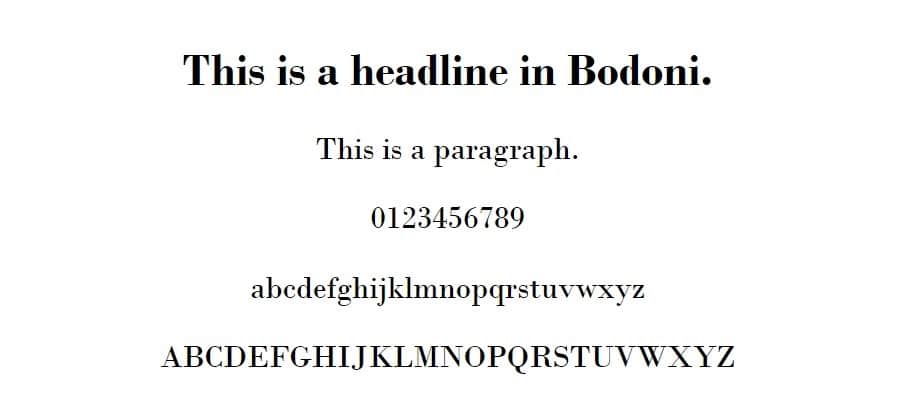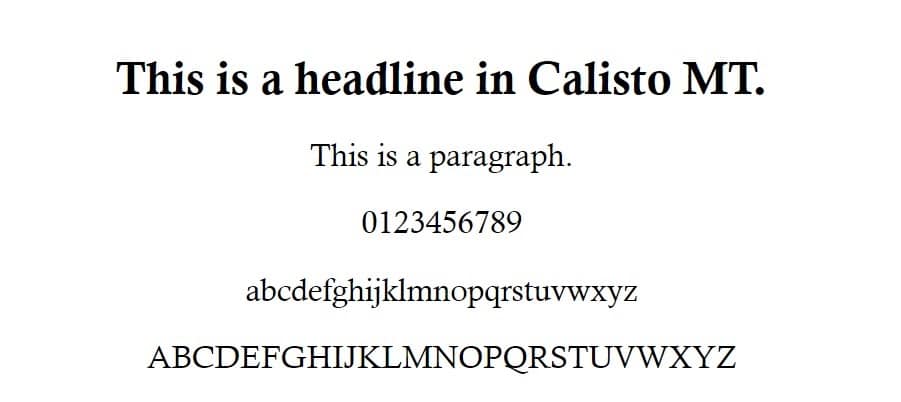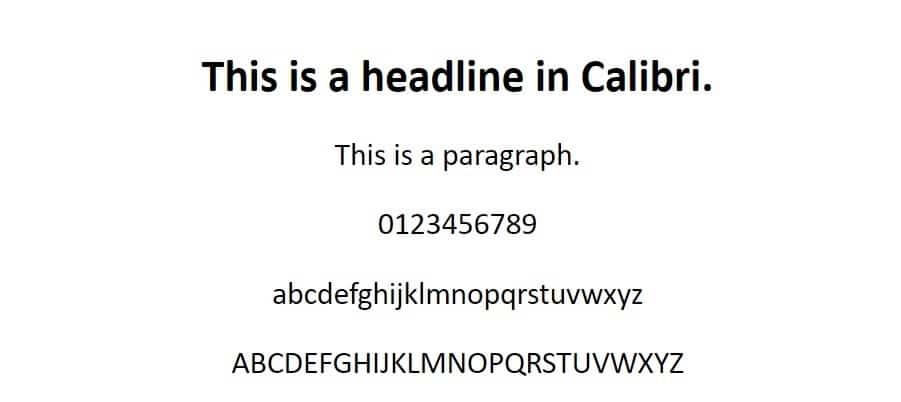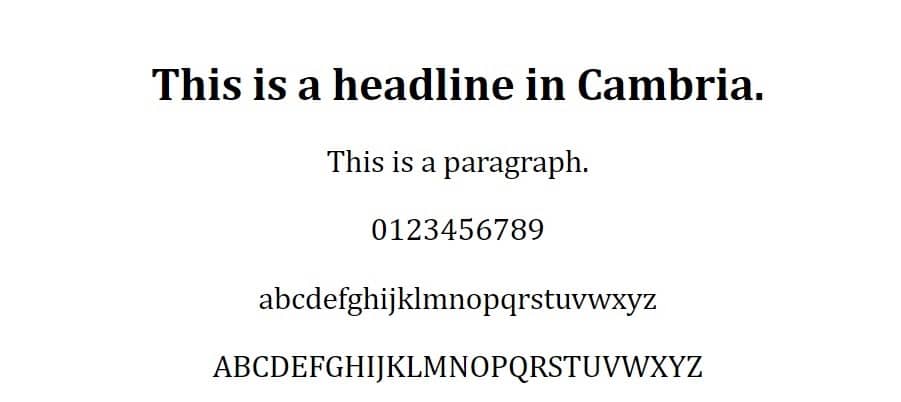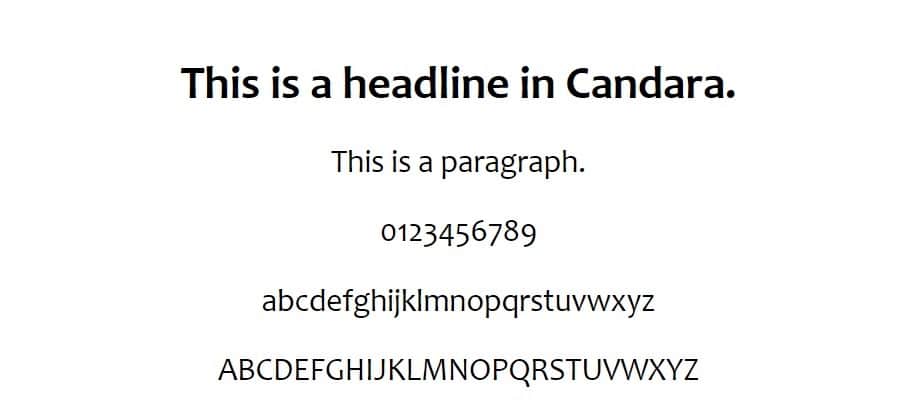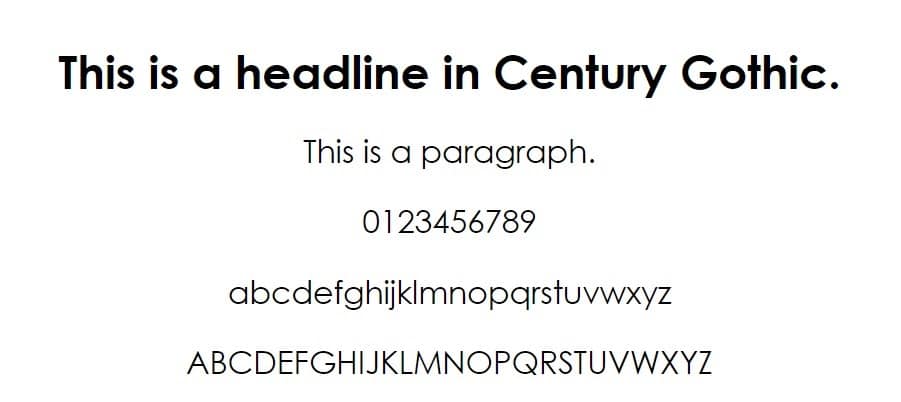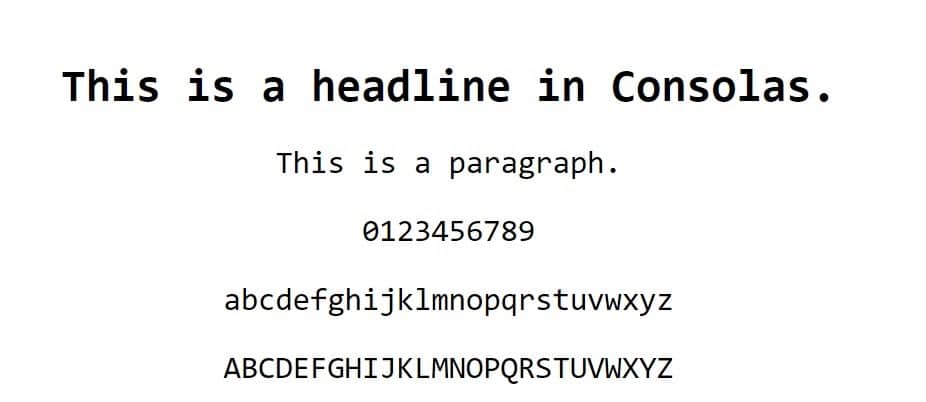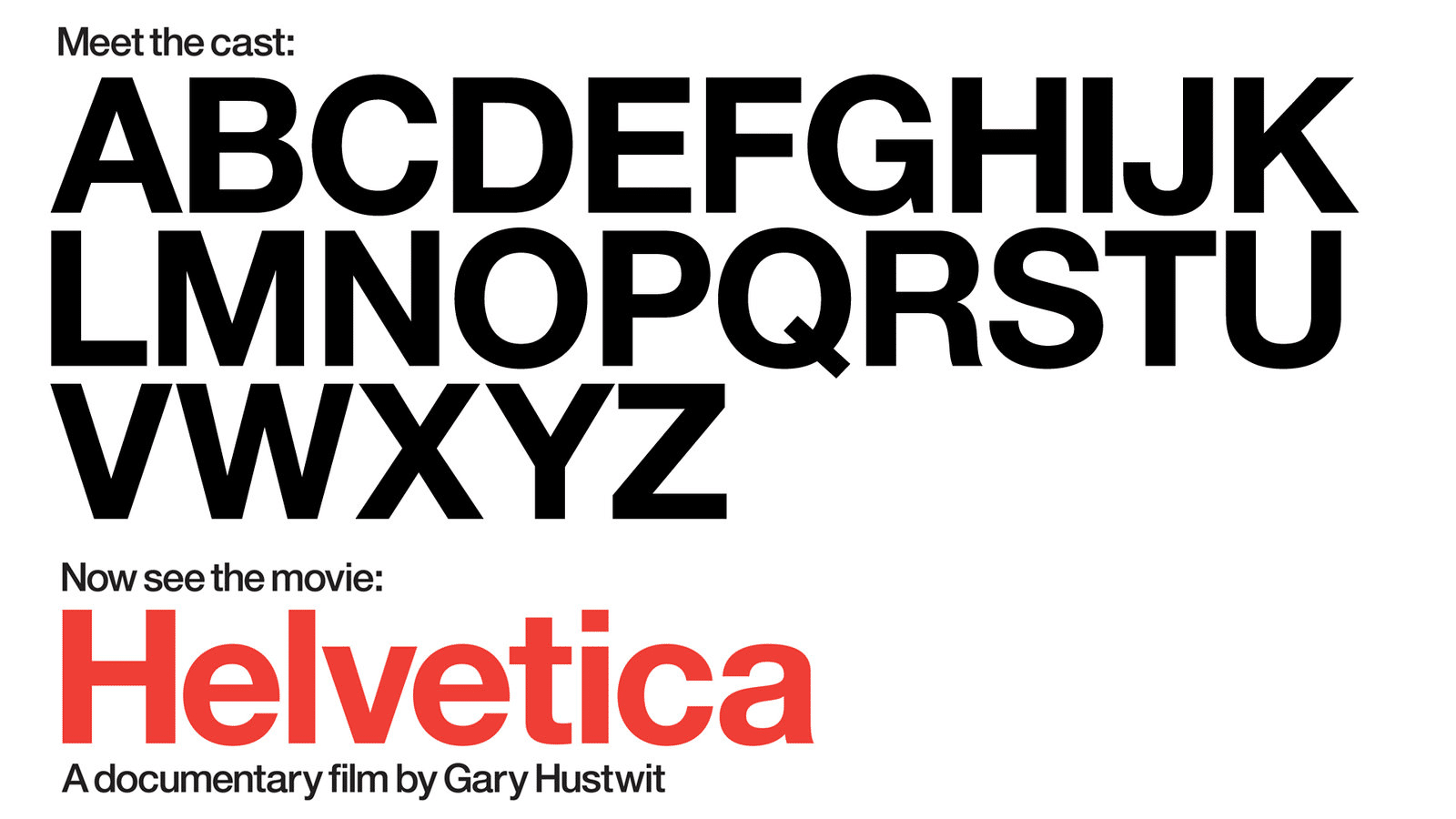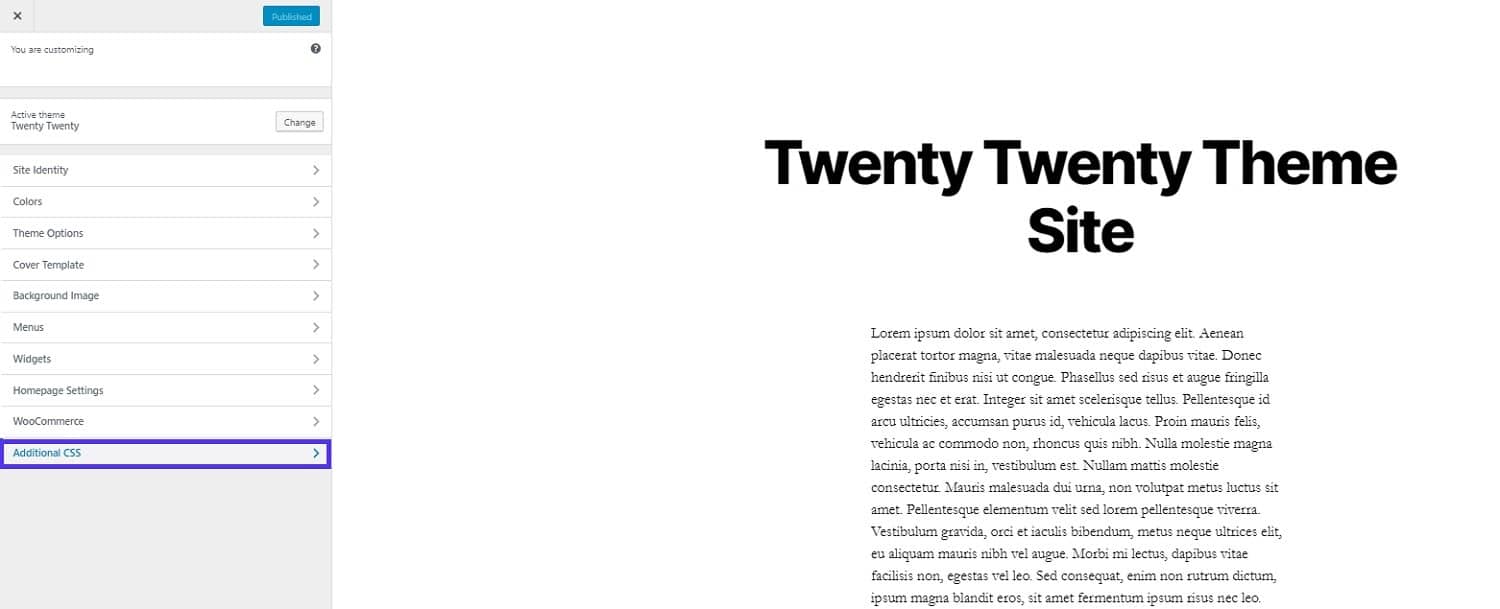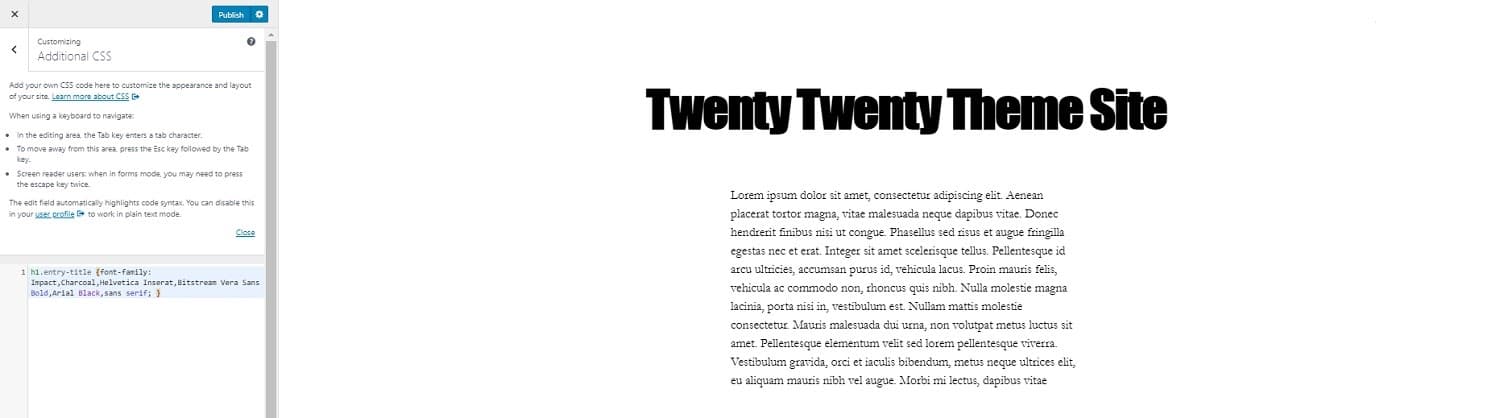
30+ Best Web Safe Fonts for Your Next Design in 2023
You don’t need thousands of fonts to create a great-looking website. But you do need to make sure that the fonts you use are visible to everyone who visits your website. And that’s where web safe fonts come in.
And if you could find web safe fonts which are a) 100% free to use and b) don’t need to be hosted anywhere else for your visitors to see them, it’d be a homerun for you.
That’s exactly what this post has been written for: we’ll cover the 31 best-looking web safe fonts and show you exactly how to implement them into your WordPress site.
What Fonts are Web Safe?
Including variations, there are over 650,000 different fonts available online. Fonts that are supported by the majority of web browsers and operating systems are considered to be web safe. The operating system automatically includes the font files, so visitors don’t have to download fonts from your servers.
An example is the ubiquitous Arial font that birthed thousands of “spin-offs”.
Are Web Safe Fonts Necessary in 2023?
Sure, the vast majority of users now use Google Chrome, both on mobile and desktop. But that doesn’t mean web safe fonts are a thing of the past.
In fact, supported fonts vary based on the operating systems, including the current version a user has. So if you design a website with a font only supported by the newest version of Windows 10, most users will see something else.
In addition, if you choose to use and host a custom local font, or font hosted by a third party, it can slow down your website. So, switching to web safe fonts can speed up your website. And that’s a great thing. Because nearly 70% of consumers say page speed influences their purchasing decisions.
Are Google Fonts Web Safe?
Google Fonts aren’t inherently supported by your operating system, so by definition, they aren’t web safe fonts. Rather, since Google, a third-party, hosts them, a Google Font is called a web font. Confusing, we know, but the difference is that your browser needs to load a file before it can show Google fonts.
Web safe fonts already have font files ready on the majority of devices. But, don’t worry about the lack of the word safe. Google Fonts are completely safe to use to enhance the design of your website. But, the extra HTTP requests to an outside server could slow down your page loading speed.
31+ Best Web Safe Fonts
We’ve compiled a list of over thirty different great-looking web safe fonts you can use to design your website.
Let’s jump right into it.
1. Arial
arial font - web safe fonts
Arial font example
Arial is a classic sans serif font, suitable for both paragraphs and headlines. It’s long been a staple in web design. Although in recent years, it’s often used as a fallback in a font stack, rather than as the main font-family.
2. Baskerville
baskerville font - web safe fonts
Baskerville font example
Baskerville is a relatively thick serif font, originally developed as a typeface by John Baskerville in 1750. The design is well-balanced, using a mix of thick and thin strokes to soften the hard edges of a typical serif typeface. It’s well supported by newer Apple and Microsoft OS versions.
3. Bodoni MT / Bodoni 72
bodoni font
Bodoni MT font example
Bodoni MT is a serif font, like Times New Roman, more suitable for paragraph text than headlines for most websites. Bodoni MT is available by default with Microsoft 10 and some older versions. Bodoni 72 is included with macOS Sierra and newer versions.
4. Calibri
calibri font - web safe fonts
Calibri font example
Calibri is Microsoft’s standard sans serif font and has been since its release with Microsoft Office 2007. It has a soft, modern look, with rounded edges to elevate the typical sans serif feel, making it more warm than robotic.
Recommended Font Stack
Font-family: Calibri, Candara, Segoe, Segoe UI, Optima, Arial, sans-serif.
5. Calisto MT
calisto mt font - web safe fonts
Calisto MT font example
Calisto MT is a serif font with slightly softer and less pronounced serifs than most similar typefaces. It’s a standard Microsoft font, included with most newer versions of Windows. The macOS or iOS equivalent is the Bookman Old Style font.
Recommended Font Stack
Font-family: Calisto MT, Bookman Old Style, Bookman, Goudy Old Style, Garamond, Hoefler Text, Bitstream Charter, Georgia, serif.
6. Cambria
cambria font - web safe fonts
Cambria font example
Cambria is an even softer serif font, with, in many cases, barely noticeable serifs even for capital letters. This gives it a more modern feel and also maintains a high level of readability on screens.
Recommended Font Stack
Font-family: Cambria, Georgia, serif.
7. Candara
candara font
Candara font example
Candara is a sans serif font. It’s part of Microsoft’s ClearType font collection. The macOS and iOS equivalent is Optima Regular. The uneven stroke weights make it feel a bit less modern and corporate than other sans serif fonts.
Recommended Font Stack
Font-family: Candara, Calibri, Segoe, Segoe UI, Optima, Arial, sans-serif.
8. Century Gothic
century gothic font - web safe fonts
Century Gothic font example
Century Gothic is a geometric sans serif font, with a very clean and balanced look. It’s a great font for the web, especially for headings and subheadings. It was originally designed to compete with the font Futura. It’s included with most Microsoft and Apple operating systems.
Recommended Font Stack
Font-family: Century Gothic, CenturyGothic, AppleGothic, sans-serif.
9. Consolas
consolas
Consolas font example
Consolas is a sans serif font with a unique approach to design. All characters have the same width, which is why it uses serifs only for the letter “I” and the lowercase “l”. It’s part of the ClearType collection.
Recommended Font Stack
Font-family: Consolas, monaco, monospace.
10. Copperplate Gothic
copperplate gothic
Copperplate Gothic font example
Copperplate Gothic is a gothic-inspired font, with slight glyphic serifs on certain letters. As it’s inspired by gothic runes, there’s no lowercase font available.
Recommended Font Stack
Font-family: Copperplate, Copperplate Gothic Light, fantasy.
11. Courier New
courier new font - web safe fonts
Courier New font example
Courier New is a monospaced slab serif font, with much thinner regular text than most other serif and sans serif fonts. It has almost perfect coverage by both Microsoft and Apple on both computers and mobile devices.
Recommended Font Stack
Font-family: Courier New, Courier, Lucida Sans Typewriter, Lucida Typewriter, monospace.
12. Dejavu Sans
dejavu sans font
Dejavu Sans font example
Dejavu Sans is a sans serif font with clean, straight lines, almost a throwback to the classic sans fonts like Arial and Verdana.
Recommended Font Stack
Font-family: Dejavu Sans, Arial, Verdana, sans-serif.
13. Didot
didot font
Didot font example
Didot is a font inspired by the original Didot typefaces, used by 19th-century French printing business, the Didot family. It’s an Apple mainstay, supported by the majority of their OS and devices.
Recommended Font Stack
Font-family: Didot, Didot LT STD, Hoefler Text, Garamond, Calisto MT, Times New Roman, serif.
14. Franklin Gothic
franklin gothic font
Franklin Gothic font example
Franklin Gothic is a sans serif font with unusually thick letters, almost as if the bold version of another font. The original typeface was developed in the early 20th century by American Type Founders. It’s a good font choice for headlines, but might not be a great choice for body text.
Recommended Font Stack
Font-family: Franklin Gothic, Arial Bold.
15. Garamond
garamond font - web safe fonts
Garamond font example
Garamond is a serif font, inspired by typefaces made by the 16th-century Parisian engraver, Claude Garamond. It has softer, rounder edges than some of the more standard serif fonts, like Times New Roman. Modern versions of Microsoft and Apple OS include their own versions of the Garamond font.
Recommended Font Stack
Font-family: Garamond, Baskerville, Baskerville Old Face, Hoefler Text, Times New Roman, serif.
16. Georgia
georgia font
Georgia font example
A close relative of Garamond, Georgia is another serif font with mostly rounded edges and a fairly warm feel. It was developed for Microsoft in 1996 and is still one of the most widespread MS fonts. It’s supported by virtually all Windows and macOS versions.
Recommended Font Stack
Font-family: Georgia, Times, Times New Roman, serif.
17. Gill Sans
gill sans - web safe fonts
Gill Sans font example
Gill Sans is a sans serif font, with sharp, clean lines that give it a modern look. It’s not ideal for paragraph text out of the box, because of its lack of contrast between letters, and close spacing. But as you can see in the example text, it makes a great-looking headline. Most iOS, macOS, and Windows-powered devices support it.
Recommended Font Stack
Font-family: Gill Sans, Gill Sans MT, Calibri, sans-serif.
18. Goudy Old Style
goudy old style font
Goudy Old Style font example
Goudy Old Style is a soft old-style serif font, with strong serifs and an old-fashioned look and feel. The periods are diamond-shaped rather than the regular perfect, round circles of most serif fonts. It’s included with most newer versions of Windows.
Recommended Font Stack
Font-family: Goudy Old Style, Garamond, Big Caslon, Times New Roman, serif.
19. Helvetica
Helvetica font
Helvetica font documentary (Source: Kanopy)
Helvetica is perhaps the most famous font of all time, and definitely one of the only fonts to have its own dedicated documentary. It’s a modern sans serif font, inspired by other modern Swiss and German fonts from the late 19th and early 20th centuries.
Rather than a soft, rounded, and warm design, it’s balanced and focused on clean lines and shapes. This makes it one of the few fonts suitable for both body copy and headlines. All Apple devices include Helvetica fonts, while Microsoft defaults to Arial, its MS equivalent.
Recommended Font Stack
Font-family: Helvetica Neue, Helvetica, Arial, sans-serif.
20. Impact
impact font - web safe fonts
Impact font example
Impact is a realist sans-serif font, with a very thick bolded look as its default for all text, capital, and lowercase alike. The boldness makes it stand out from regular text and makes it perfect for headlines or CTAs (calls to action), but it’s not ideal for body copy.
It was part of the original core fonts for the web package in 1998. It’s still widely included and supported by both Apple and Windows computers and phones to this day.
Recommended Font Stack
Font-family: Impact, Charcoal, Helvetica Inserat, Bitstream Vera Sans Bold, Arial Black, sans serif.
21. Lucida Bright
lucida bright font
Lucida Bright font example
Lucida Bright is the serif font in Microsoft’s line of Lucida fonts, developed for MS in 1991. One of the things that makes it stand out is the use of more square, sturdier serifs, for example on the capital “T” and “L”. It’s included by default in most newer versions of Windows, whereas macOS typically only includes the sans serif font Lucida Grande, making Georgia a logical fallback font.
Recommended Font Stack
Font-family: Lucida Bright, Georgia, serif.
22. Lucida Sans
lucida sans font
Lucida Sans font example
Lucida Sans is a clean-cut humanist sans serif font, designed specifically to complement the serif fonts in the Lucida line. There’s a greater variation in the stroke weight than with the cleaner sans fonts like Helvetica or Arial. This makes it feel a bit less futuristic or robotic, and more playful. Out of the box, it’s a great font for headlines and CTAs.
Recommended Font Stack
Font-family: Lucida Sans, Helvetica, Arial, sans-serif.
23. Microsoft Sans Serif
ms sans serif - web safe fonts
Microsoft Sans Serif font example
Microsoft Sans Serif is a sans serif font first introduced with Windows 2000. It’s the successor to the MS Sans Serif font, which was also known as Helv (short for Helvetica). It’s inspired by and based on Helvetica, the leading sans serif typeface in modern times.
It’s a clean font with even stroke weight, leading to a clean, professional look. Perfect for headlines and corporate websites. It was included as one of the original fonts for the web and is still standard for all Microsoft devices.
Recommended Font Stack
Font-family: MS Sans Serif, sans-serif.
24. Optima
optima - web safe fonts
Optima font example
Optima is a humanist sans serif font, with varying stroke weight and varying symmetry. This makes it look almost done by hand, which combats the typical mass-produced feel of a sans serif font. It’s one of the standard Apple sans serif fonts and supported by most iOS and macOS devices. The Microsoft equivalent is Segoe.
Recommended Font Stack
Font-family: Optima, Segoe, Segoe UI, Candara, Calibri, Arial, sans-serif.
25. Palatino
palatino font
Palatino font example
Palatino is another old-style serif and would feel right at home in any online newspaper or magazine. But it’s less uniform than something like a Georgia or Times New Roman, with varying stroke weights and shapes.
The design approach helps to soften sharp letters like k, l, x, y, and z. It’s also slightly bolder than other serif fonts. These two factors help it feel a bit warmer. Palatino is included with the majority of Windows and Apple devices.
Recommended Font Stack
Font-family: Palatino, Palatino Linotype, Palatino LT STD, Book Antiqua, Georgia, serif.
26. Perpetua
perpetua font
Perpetua font example
Perpetua is a serif font with a unique design, originally created by English sculptor Eric Gill. There’s a sharp contrast in the stroke weight, for example, look at the lowercase “e” or the number “3”. This gives the font a creative, almost playful quality. It’s typically a Windows font, but Baskerville, a close relative, is standard on most Apple devices.
Recommended Font Stack
Font-family: Perpetua, Baskerville, Big Caslon, Palatino Linotype, Palatino, serif.
27. Rockwell
rockwell font - web safe fonts
Rockwell font example
Rockwell is a square or slab serif font with very bold, nearly monoweight lettering. It’s suitable for headlines or CTAs, but the added font-weight isn’t great for body text. It’s included in most newer versions of MS Windows.
Recommended Font Stack
Font-family: Rockwell, Courier Bold, Courier, Georgia, Times, Times New Roman, serif.
28. Segoe UI
segoe ui font
Segoe UI font example
Segoe UI is the leading sans serif font of the Segoe font family. Microsoft not only uses it in many applications but also in various marketing materials for its products.
It’s a modern font, with symmetrical letters and little variation in stroke weight. The font isn’t included with Apple computers, but the equivalent Helvetica Neue is similar in look and feel.
Recommended Font Stack
Font-family: Segoe UI, Frutiger, Dejavu Sans, Helvetica Neue, Arial, sans-serif.
29. Tahoma
tahoma font
Tahoma font example
Tahoma is another Microsoft-developed sans serif font. It has slightly bolder letters than Segoe UI and uses square dots for its lowercase letters, periods, and other marks.
It’s a clean, uniform font, and wouldn’t feel out of place in content or headings. It’s included in all Microsoft devices, and virtually all Apple devices.
Recommended Font Stack
Font-family: Tahoma, Verdana, Segoe, sans-serif.
30. Trebuchet MS
trebuchet ms font
Trebuchet MS font example
Trebuchet MS is another sans serif font developed by Microsoft. It was one of the original fonts included in the core fonts for the web package by Microsoft. It’s still supported by virtually all Microsoft and Apple devices. The letters are slimmer than many other sans serif fonts, making it an option for paragraphs and body text.
Recommended Font Stack
Font-family: Trebuchet MS, Lucida Grande, Lucida Sans Unicode, Lucida Sans, sans-serif.
31. Verdana
verdana font - web safe fonts
Verdana font example
Verdana, a clean sans serif font, is another Microsoft staple that’s been around since 1996. The stroke weight is fairly low for a sans serif, leading to slim, easy to read letters. You can use it for both paragraph text and headlines without issue. It’s supported by virtually all Apple and Windows devices.
Recommended Font Stack
Font-family: Verdana, Geneva, sans-serif.
Web Safe Cursive Fonts
If you want to use a web safe cursive font, you don’t have too many options to choose from. Specifically:
• Segoe script
• Rage
• Script MT
• Snell Roundhand
• Lucida Handwriting
There aren’t any cursive fonts that are universally supported across Apple and Microsoft devices. You should consider that using a cursive font for your body text may not be a great idea, as readability is a huge part of website usability.
You should always use highly readable text for your paragraphs otherwise visitors with impaired vision will have a hard time reading the text on your site. This can lead to high bounce rates and a general lack of engagement with your content.
Web Safe Sans Serif Fonts
Sans means “without” in French, so sans serif essentially means “without serif”. A serif is a line or stroke added to a longer stroke in a letter. For example, the small vertical lines under the top stroke in a capital “T”, common in newspaper or magazine headlines. Sans serif fonts are the most common and popular on the web, so you have a lot of options to choose from:
• Arial
• Calibri
• Candara
• Century Gothic
• Consolas
• Dejavu Sans
• Franklin Gothic
• Gill Sans
• Helvetica
• Lucida Sans
• MS Sans Serif
• Neue Helvetica
• Optima
• Segoe UI
• Tahoma
• Trebuchet MS
• Verdana
Where to Download Web Safe Fonts?
The great thing about web safe fonts is that you don’t have to worry about downloading them. They’re already supported by every visitor’s operating system, so you just need to code it in with CSS. If you don’t know anything about HTML and CSS or coding for the web, this might seem a bit overwhelming.
But trust us, it’s not as hard as you might think it is. We’ll walk you through the process step-by-step in our next section.
How to Add Web Safe Fonts to Your WordPress Website
If you have a WordPress site with the latest Twenty Twenty theme, you can edit the HTML fonts by adding custom CSS in the WordPress customizer.
Access it by clicking the Appearance > Customize link in the menu, and then expanding the additional CSS tab.
customizer additional css
WordPress Customizer – additional CSS
Then you need to use Chrome Dev Tools (or a similar tool for another browser) to identify the selectors of the text you want to change.
For example, you can inspect the headline of your blog post:
font family inspect chrome dev tools
Chrome Dev Tools – inspect
We can see that the theme uses the standard “entry-title” selector for the headline. You can also search for the “font-family” attribute to see how the theme is styling the text, and at what level.
Since Twenty Twenty doesn’t use a specific font for headlines, you can easily modify the headline’s font by targeting the “font-family” selector.
For example, if we want to change the headline to the Impact font, we can use the following code:
h1.entry-title { font-family: Impact, Charcoal, "Helvetica Inserat", "Bitstream Vera Sans Bold", "Arial Black", sans-serif; }
Simply add it to the additional CSS and click “Publish” to push your changes live.
new font twenty twenty theme customizer
WP Customizer – New headline font
We cover this and much more in our guide on how to change fonts in WordPress. If you built your website using HTML and CSS, you can edit the font directly in the source code.
For example, if you use the style tag in the HTML documents to apply CSS code to each page, you can edit the font-family attribute there.
edit font family
Body CSS selector font-family
If you want to change the font for all text on the page, you should target the “body” selector. If you want to change the font for specific text, you need to use a specific selector.
If you used a template to build your website, your CSS is most likely located in a separate stylesheet. This is great because it means you can change the font for your whole site by editing just one file.
In that case, you need to find your stylesheet file (typically named style.css or some variation of that). Then you need to find the section that controls the fonts and typefaces of your site.
edit font family stylesheet
CSS stylesheet example
Usually, this is done towards the top. If not, you can search for “font-family” using your code editor of choice.
Summary
Just like with themes and plugins, there’s no shortage of options for you when it comes to font ideas.
With a variety of serif, sans serif, monospace, and even cursive fonts available for free, web safe fonts are a great place to start when creating a site.
The perfect fonts make your brand stand out, improve readability, and support your message. Choose wisely!